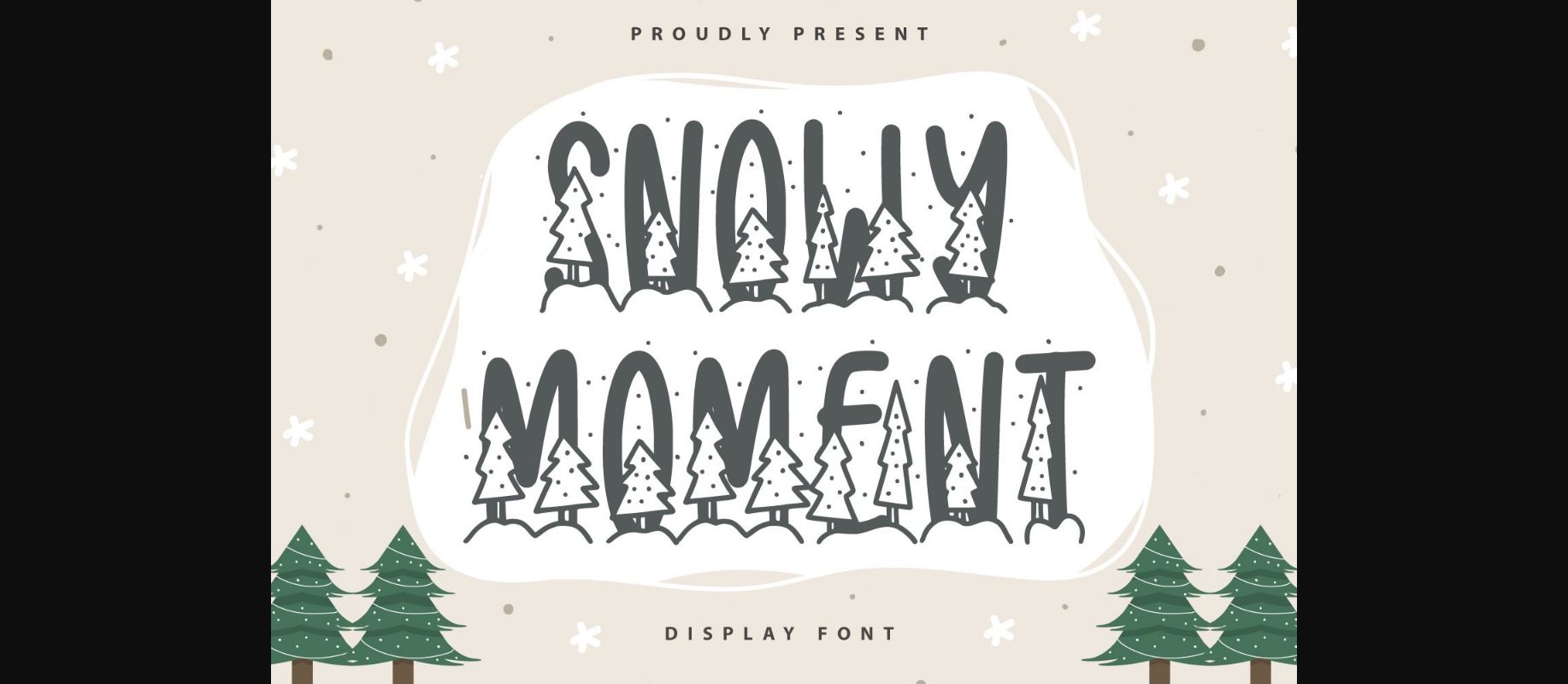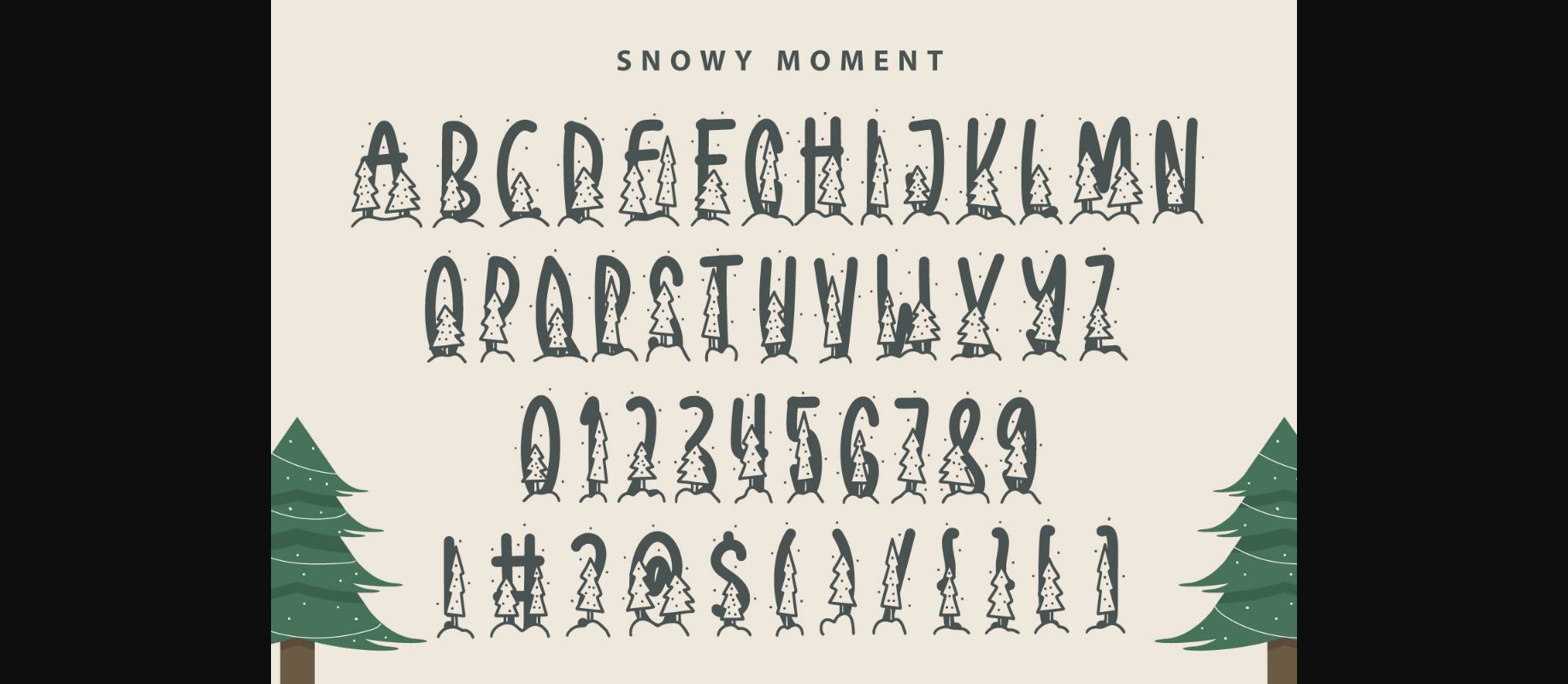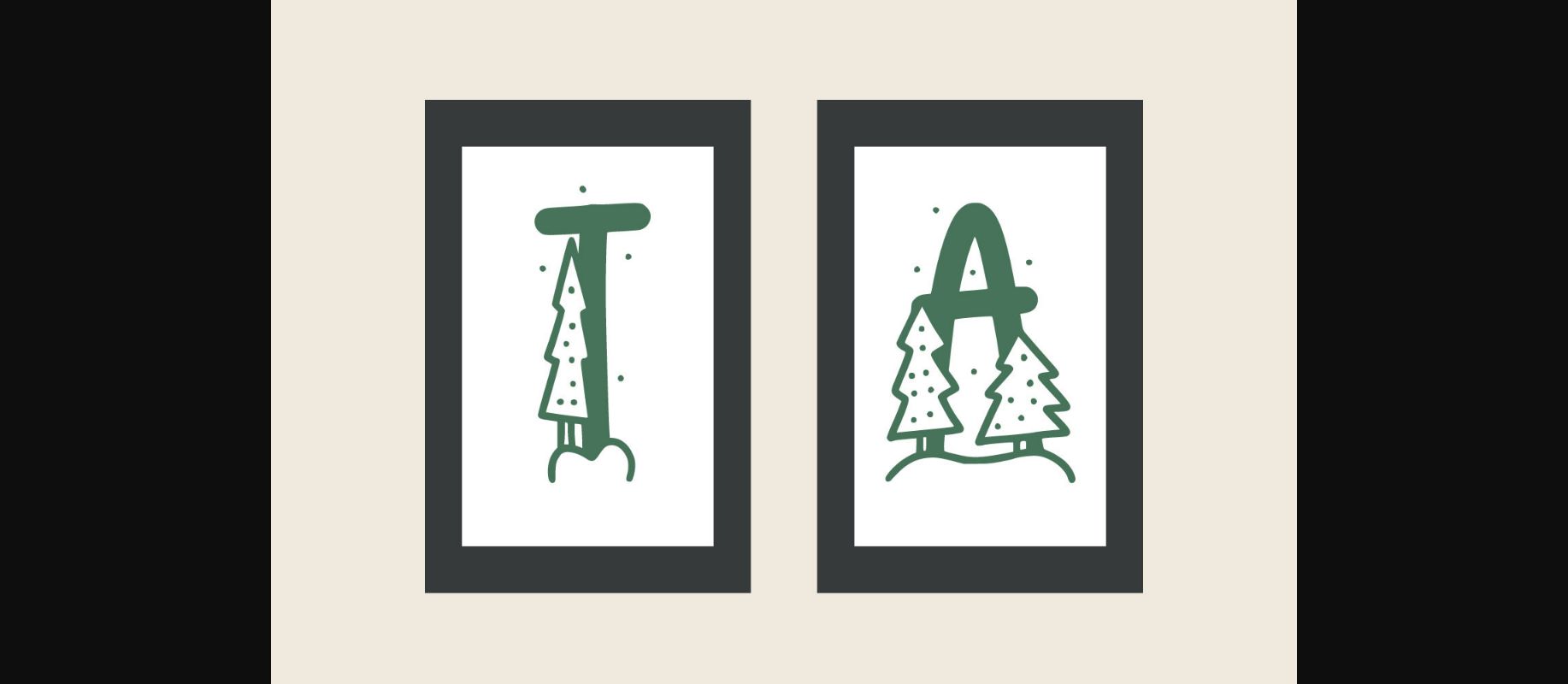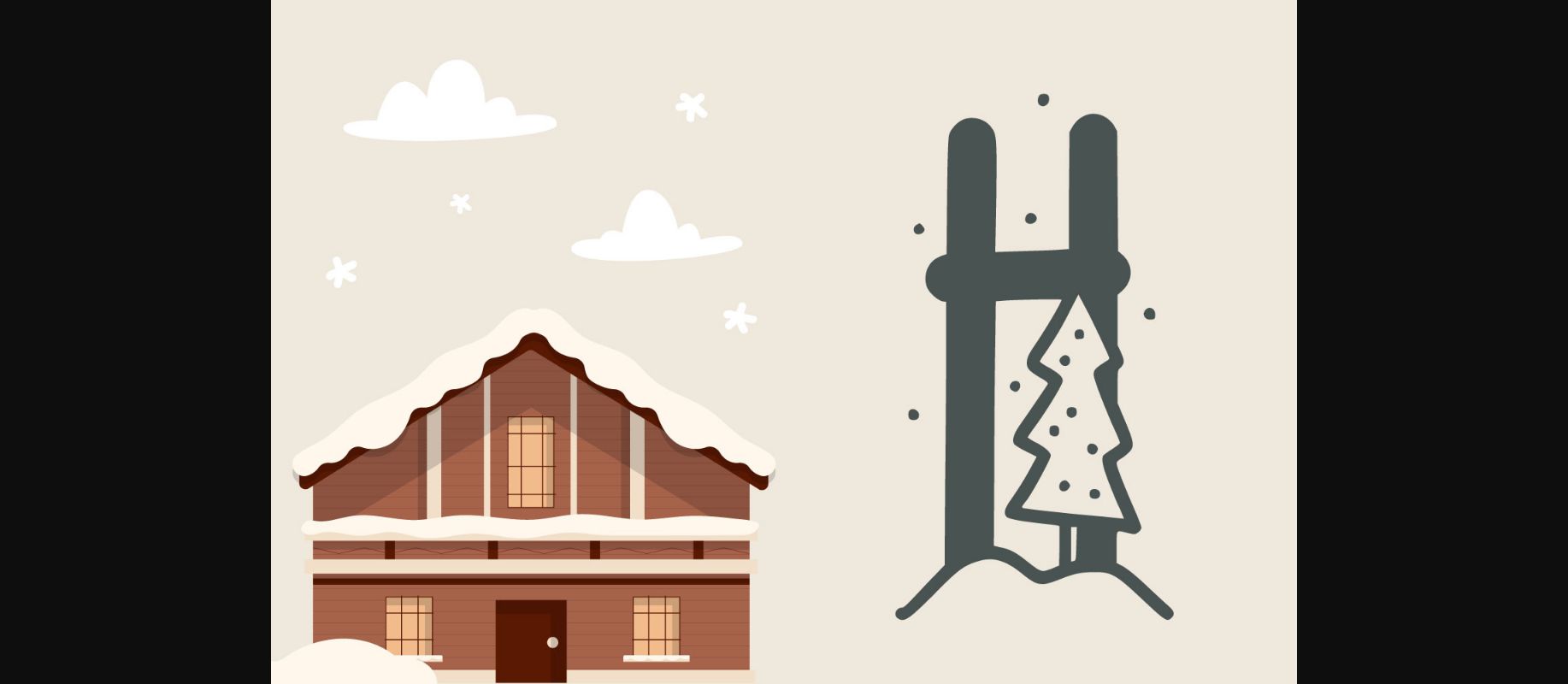
HomeDecorative FontsSnowy Moment Font Decorative Fonts Snowy Moment Font FacebookXPinterestWhatsApp 1 of 7 ... Snowy Moment Font Poster 2... Snowy Moment Font Poster 3... Snowy Moment Font Poster 4... Snowy Moment Font Poster 5... Snowy Moment Font Poster 6... Snowy Moment Font Poster 7... About Snowy Moment Font Snowy Moment is a really cute decorative font perfect for your winter-themed projects! DOWNLOAD NOW People also explored Yagrithost Neu Font Feathery Font Holliday Vibes Font Happy Woldy Font Christmas Bright Font Monkey Slab Font Play Rain Font Naldzki88 Font Salvatrice Black Font 257 0 TagsSnowy Moment Font Previous articleInjar FontNext articleHappy Beels Font LEAVE A REPLY Cancel reply Comment: Please enter your comment! Name:* Please enter your name here Email:* You have entered an incorrect email address! Please enter your email address here Website: Save my name, email, and website in this browser for the next time I comment. Personal Use Free Lynoselt Personal Use Free Read more about this font Nickainley Personal Use Free Read more about this font Darla Personal Use Free Read more about this font Foo Personal Use Free Read more about this font BLOG Top 10 Handwritten Fonts That Elevate Your Designs Top 10 Handwritten Fonts That Will Elevate Your Designs Handwritten fonts bring a warm, personal touch to every creative project. Whether you're designing logos, invitations,... How to Install and Use Fonts on Windows, macOS, and Web Projects Using Fonts in Digital Marketing: Tips to Strengthen Your Brand Identity Where to Buy American Fonts Online in 2024